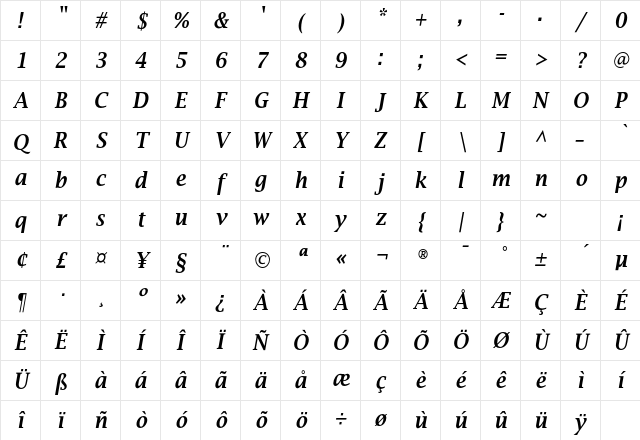
Complete LucidaBrightNarEF DeBolIta glyph index. Displaying only characters natively supported by LucidaBrightNarEF DeBolIta font.
LucidaBrightNarEF is a composed and adaptable typeface that performs quietly and consistently across a wide range of design contexts.